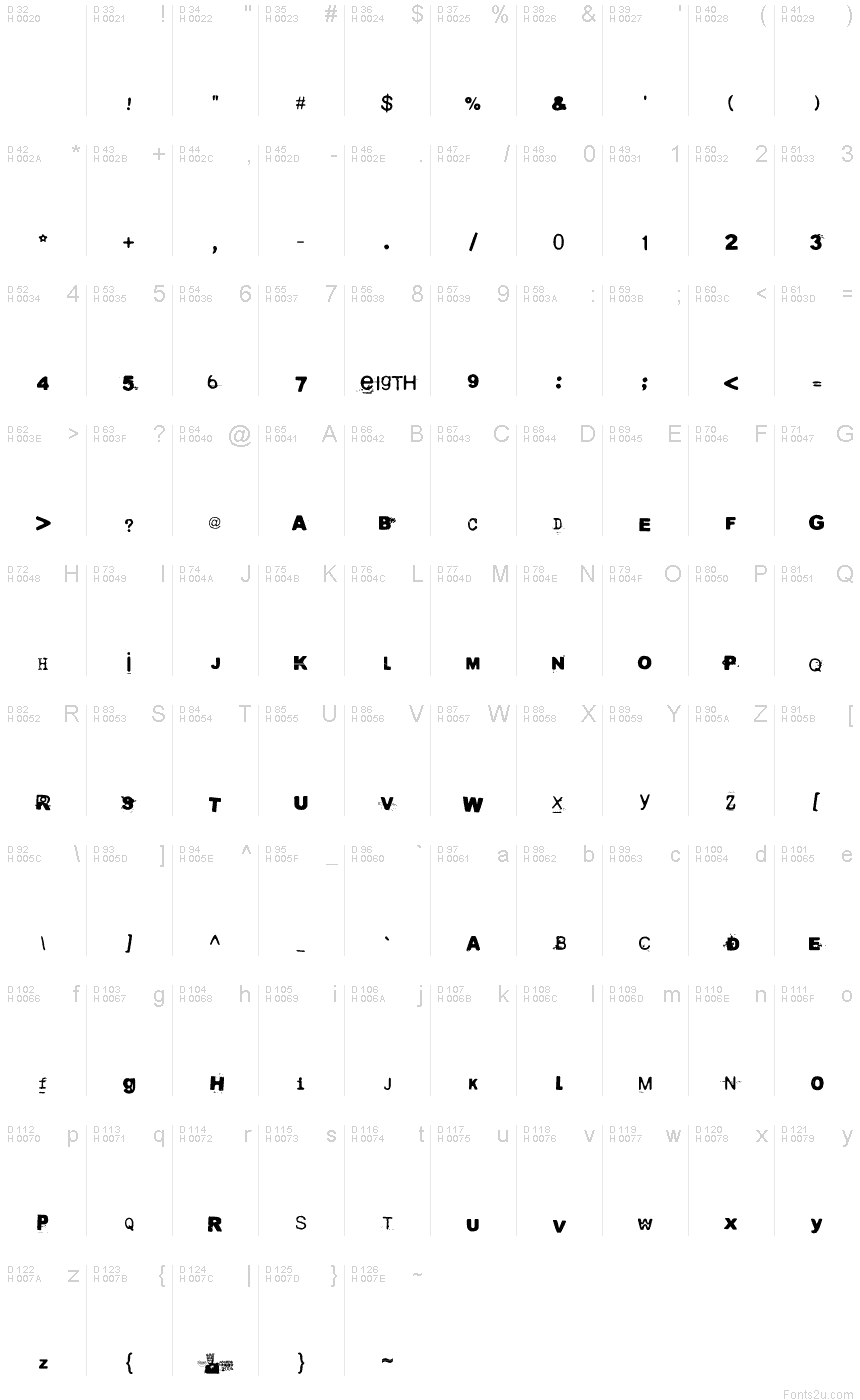
Hullunkruunu
Hullunkruunu font by Junkohanhero is a free distorted display typeface. Chunky black shapes collide with scratchy, uneven forms, so every word feels a bit unhinged—like a ransom note mashed with a bold cartoon logo. The heavy inked-in strokes and lopsided edges give it a rough, handmade energy that instantly grabs attention and refuses to sit quietly in the corner.
Using Hullunkruunu, you can push posters, horror or Halloween graphics, album covers, zines, indie game titles, and YouTube thumbnails into gloriously chaotic territory. This free font works best big and loud; pair it with a clean geometric sans in smaller text to keep your layouts readable while the headline does all the shouting.